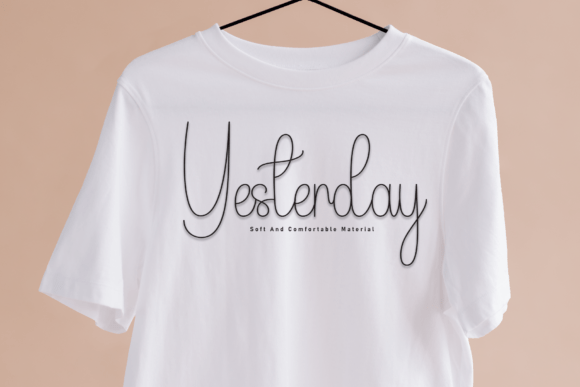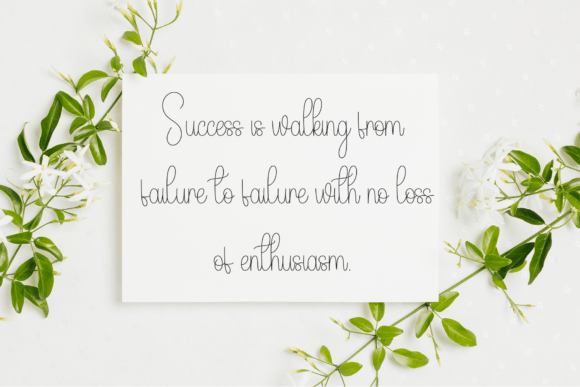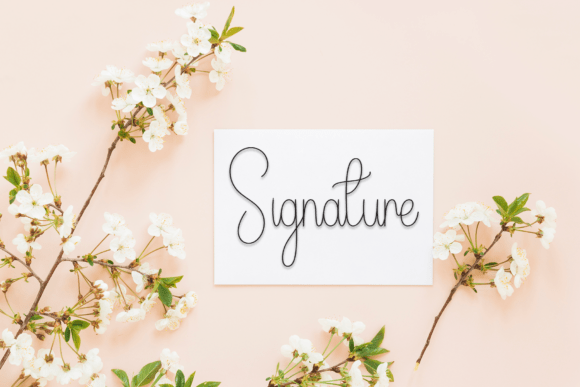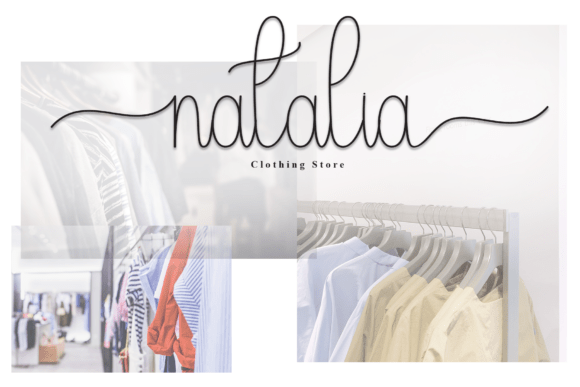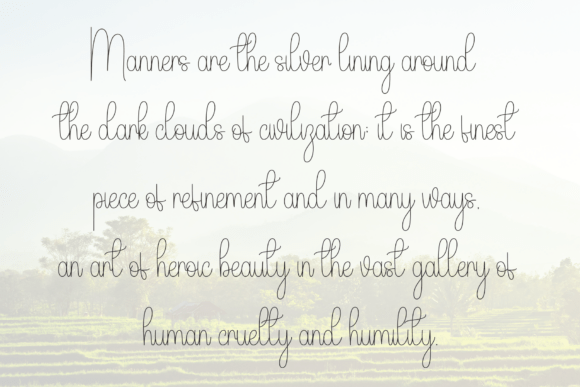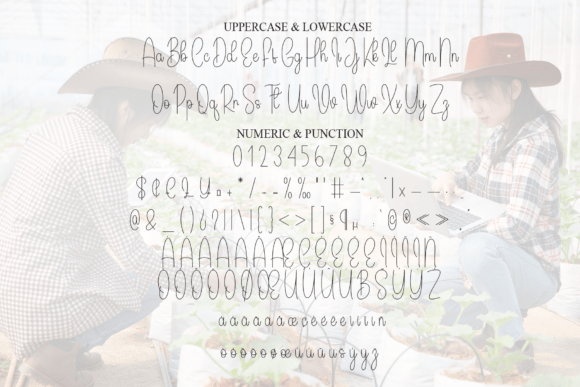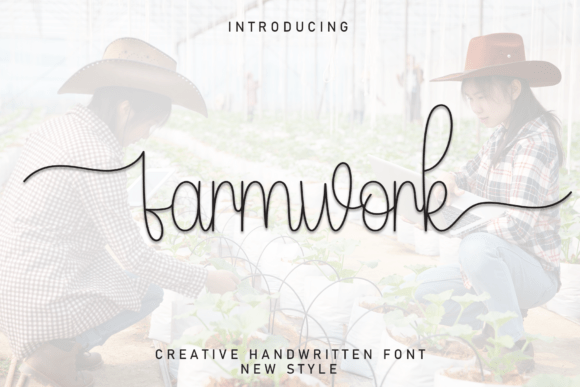
Introducing Farmwork Font: Elevate Your Designs with Elegance and Fluidity
In the world of typography, a font can make or break the aesthetic of a design. For crafters, designers, and artists, finding the perfect typeface that combines style, elegance, and personality is a constant quest. This is where Farmwork Font comes into play – a stylish handwritten script font that radiates sophistication and fluidity, making it an ideal choice for a wide range of creative projects.
The Essence of Farmwork Font
Farmwork Font is a beautifully crafted handwritten script font that exudes a natural and sophisticated feel. Its smooth, flowing strokes create a sense of movement and fluidity, reminiscent of handwritten calligraphy. The font’s elegant and refined appearance makes it perfect for designs that require a touch of luxury and sophistication.
Key Features of Farmwork Font
- Elegant and Fluid Strokes: Farmwork Font features smooth, flowing strokes that create a natural and sophisticated feel.
- Handwritten Script Style: This font is a beautiful example of handwritten script typography, adding a personal and artistic touch to any design.
- Perfect for Branding and Invitations: Farmwork Font is ideal for branding, invitations, and creative projects that require a touch of elegance and sophistication.
- Balanced Charm and Modernity: This typeface strikes a perfect balance between charm and modernity, making it suitable for a wide range of design applications.
Use Cases for Farmwork Font
Farmwork Font is a versatile typeface that can be used in various design projects, including:
- Branding and Logo Design: Create a lasting impression with Farmwork Font’s elegant and sophisticated appearance.
- Wedding Invitations and Stationery: Add a touch of luxury and romance to your wedding invitations and stationery with this beautiful script font.
- Packaging Design: Elevate your packaging design with Farmwork Font’s unique and artistic style.
- Digital and Print Media: Use Farmwork Font in digital and print media, such as magazines, brochures, and social media graphics.
Why Choose Farmwork Font?
With so many fonts available, why choose Farmwork Font? Here are a few reasons:
- Unique and Artistic Style: Farmwork Font offers a distinctive and artistic style that sets it apart from other fonts.
- Elegant and Sophisticated: This font exudes elegance and sophistication, making it perfect for high-end designs.
- Easy to Read: Despite its elegant appearance, Farmwork Font is easy to read, making it suitable for body text and headings.
Tips for Using Farmwork Font
To get the most out of Farmwork Font, here are a few tips:
- Use it as a Headline Font: Farmwork Font is perfect for headlines and titles, where its elegant appearance can shine.
- Pair it with a Sans-Serif Font: Pair Farmwork Font with a sans-serif font for body text to create a beautiful contrast.
- Experiment with Colors and Textures: Play around with different colors and textures to add depth and interest to your design.
Farmwork Font is a stylish and elegant handwritten script font that can elevate your designs to new heights. With its smooth, flowing strokes and sophisticated appearance, this font is perfect for branding, invitations, and creative projects. Whether you’re a designer, crafter, or artist, Farmwork Font is a great addition to your typography collection.